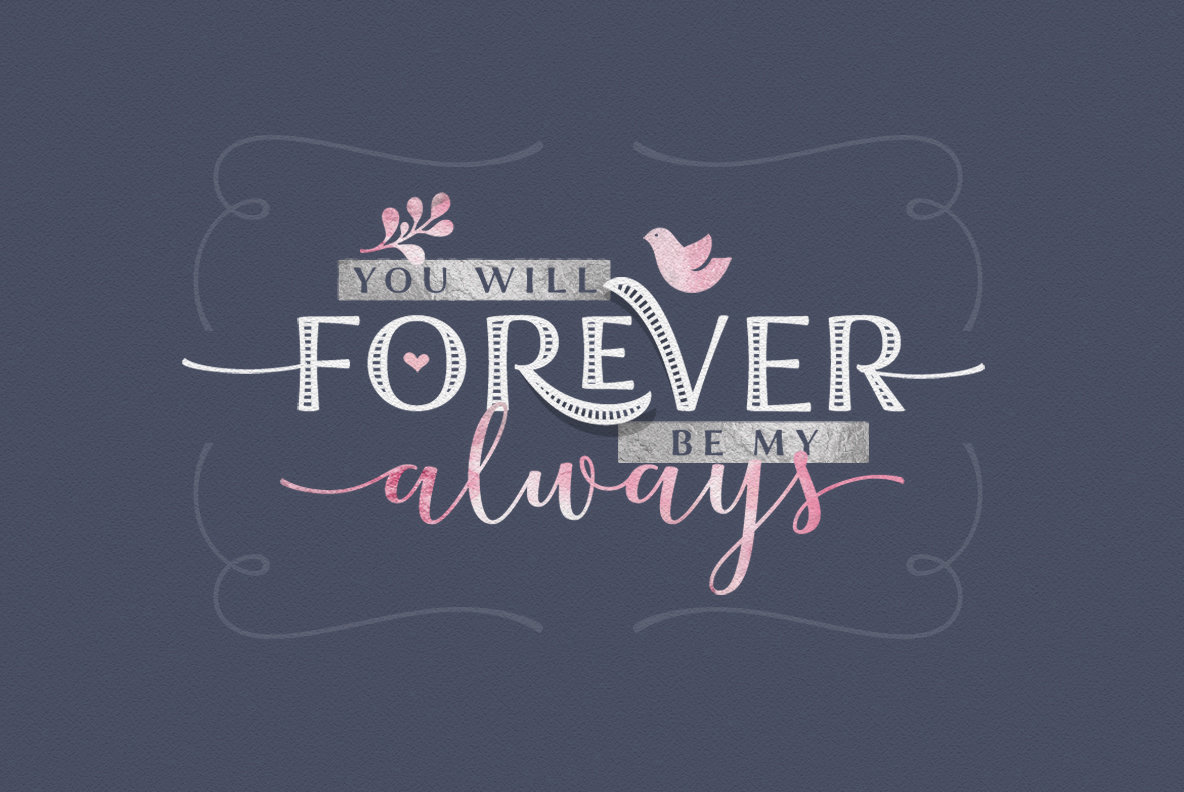
Lovingly Friends Font
Introducing “Lovingly Friends” - a community of fonts that get along together as good as best friends do. All of the fonts - Sans, Serif, Notes, Script and Extras are packed with stylistic alternates and ligatures, you can combine them the way you like - they will look balanced together as well as individually. Script and Engraved fonts also have a Shadow style - to add more personality to your designs. You can download the Specimen & Instructions pdf here
Since the Christmas is not that far away (time flies!), the Extras font has a set of Winter Holidays elements - so you could create and send your best wishes to your friends in no time.